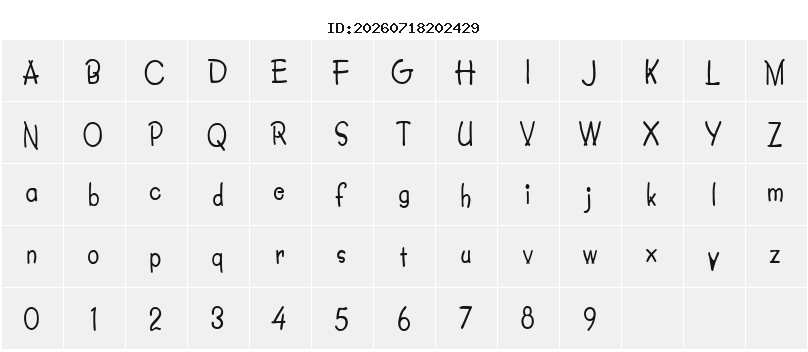
• Font Name: Crayon-Condensed
• Full Font Name: Crayon-Condensed Normal
Crayon-Condensed.ttf is a modern, elegant sans-serif font designed for ultimate readability and visual harmony. Perfect for branding, headlines, web design, and print materials.